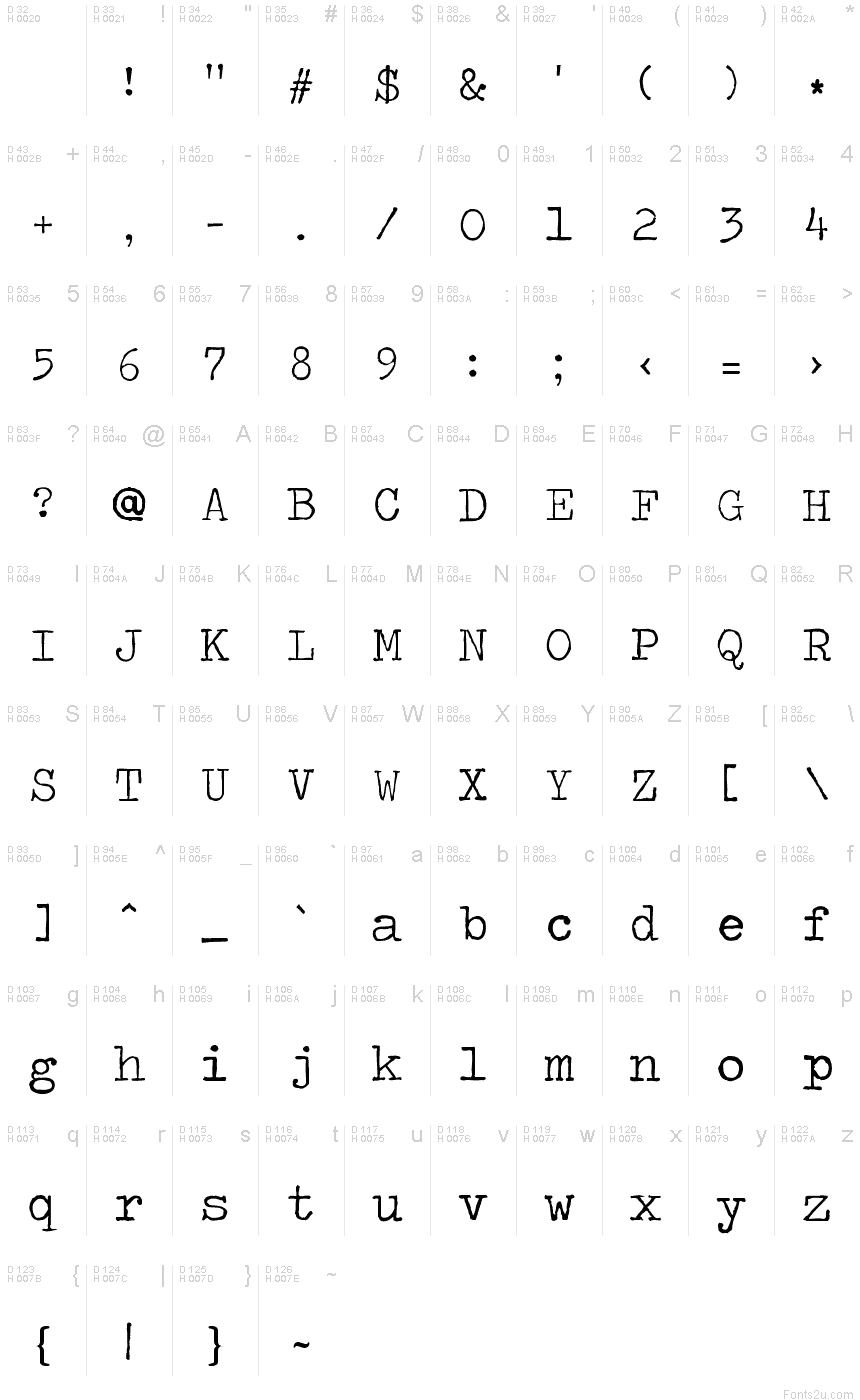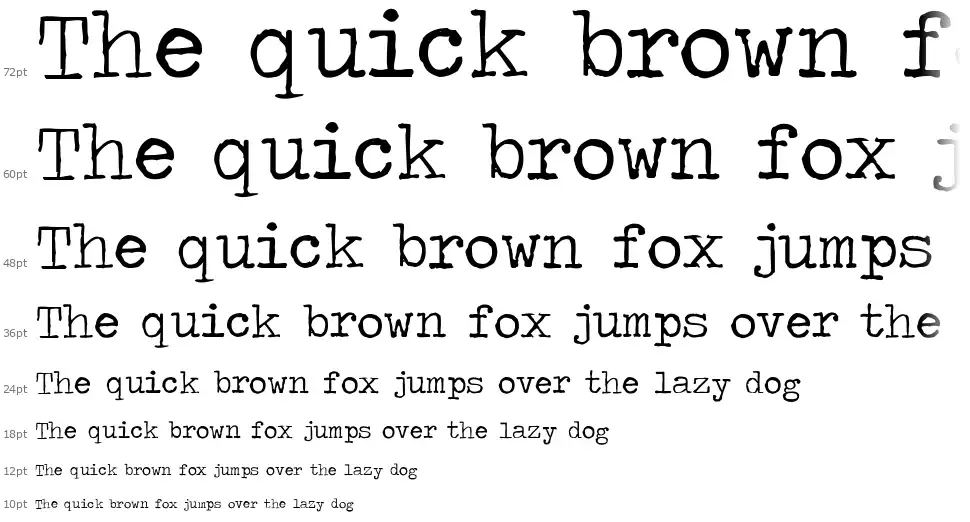
Traveling Typewriter Font Bold . traveling typewriter font contains 228 defined characters and 218 unique glyphs. Moreover, you can embed it to your. Click here to create a custom image with your own text. traveling typewriter is a fancy, typewriter font based on an old danish “olympia traveller de luxe” typewriter, made in western germany and designed by carl krull. Download font free at fontriver. download traveling _typewriter font · free for personal use · this font is based on an old danish olympia traveller de luxe typewriter, made in. It contains 228 defined characters and 218 unique glyphs and supports uppercase & lowercase font, stylistic alternates ligatures, symbols & punctuations. looking for traveling typewriter font designed by carl? font made from an old danish olympia traveller de luxe typewriter, made in western germany. free download of traveling typewriter font.
traveling typewriter font contains 228 defined characters and 218 unique glyphs. font made from an old danish olympia traveller de luxe typewriter, made in western germany. Click here to create a custom image with your own text. It contains 228 defined characters and 218 unique glyphs and supports uppercase & lowercase font, stylistic alternates ligatures, symbols & punctuations. Download font free at fontriver. download traveling _typewriter font · free for personal use · this font is based on an old danish olympia traveller de luxe typewriter, made in. Moreover, you can embed it to your. looking for traveling typewriter font designed by carl? traveling typewriter is a fancy, typewriter font based on an old danish “olympia traveller de luxe” typewriter, made in western germany and designed by carl krull. free download of traveling typewriter font.
Traveling Typewriter Font Bold Moreover, you can embed it to your. looking for traveling typewriter font designed by carl? traveling typewriter font contains 228 defined characters and 218 unique glyphs. Click here to create a custom image with your own text. font made from an old danish olympia traveller de luxe typewriter, made in western germany. free download of traveling typewriter font. Download font free at fontriver. download traveling _typewriter font · free for personal use · this font is based on an old danish olympia traveller de luxe typewriter, made in. Moreover, you can embed it to your. traveling typewriter is a fancy, typewriter font based on an old danish “olympia traveller de luxe” typewriter, made in western germany and designed by carl krull. It contains 228 defined characters and 218 unique glyphs and supports uppercase & lowercase font, stylistic alternates ligatures, symbols & punctuations.
Travelling typewriter font free download Traveling Typewriter Font Bold Download font free at fontriver. traveling typewriter font contains 228 defined characters and 218 unique glyphs. traveling typewriter is a fancy, typewriter font based on an old danish “olympia traveller de luxe” typewriter, made in western germany and designed by carl krull. font made from an old danish olympia traveller de luxe typewriter, made in western germany.. Traveling Typewriter Font Bold.
Traveling Typewriter Font Bold traveling typewriter is a fancy, typewriter font based on an old danish “olympia traveller de luxe” typewriter, made in western germany and designed by carl krull. font made from an old danish olympia traveller de luxe typewriter, made in western germany. traveling typewriter font contains 228 defined characters and 218 unique glyphs. download traveling _typewriter font. Traveling Typewriter Font Bold.
[Typewriter] Traveling Typewriter Việt hóa Traveling Typewriter Font Bold Click here to create a custom image with your own text. Download font free at fontriver. traveling typewriter font contains 228 defined characters and 218 unique glyphs. It contains 228 defined characters and 218 unique glyphs and supports uppercase & lowercase font, stylistic alternates ligatures, symbols & punctuations. free download of traveling typewriter font. looking for traveling. Traveling Typewriter Font Bold.
Traveling _Typewriter Font · 1001 Fonts Traveling Typewriter Font Bold Moreover, you can embed it to your. Download font free at fontriver. free download of traveling typewriter font. looking for traveling typewriter font designed by carl? It contains 228 defined characters and 218 unique glyphs and supports uppercase & lowercase font, stylistic alternates ligatures, symbols & punctuations. download traveling _typewriter font · free for personal use ·. Traveling Typewriter Font Bold.
Traveling _Typewriter Font · 1001 Fonts Traveling Typewriter Font Bold traveling typewriter font contains 228 defined characters and 218 unique glyphs. looking for traveling typewriter font designed by carl? Download font free at fontriver. It contains 228 defined characters and 218 unique glyphs and supports uppercase & lowercase font, stylistic alternates ligatures, symbols & punctuations. traveling typewriter is a fancy, typewriter font based on an old danish. Traveling Typewriter Font Bold.
TravelingTypewriter Font Traveling Typewriter Font Bold free download of traveling typewriter font. traveling typewriter is a fancy, typewriter font based on an old danish “olympia traveller de luxe” typewriter, made in western germany and designed by carl krull. looking for traveling typewriter font designed by carl? Click here to create a custom image with your own text. It contains 228 defined characters and. Traveling Typewriter Font Bold.
Traveling Typewriter font by Carl FontRiver Traveling Typewriter Font Bold traveling typewriter font contains 228 defined characters and 218 unique glyphs. Moreover, you can embed it to your. download traveling _typewriter font · free for personal use · this font is based on an old danish olympia traveller de luxe typewriter, made in. Download font free at fontriver. free download of traveling typewriter font. looking for. Traveling Typewriter Font Bold.
Traveling Typewriter Font Download Fonts4Free Traveling Typewriter Font Bold Download font free at fontriver. looking for traveling typewriter font designed by carl? Moreover, you can embed it to your. free download of traveling typewriter font. It contains 228 defined characters and 218 unique glyphs and supports uppercase & lowercase font, stylistic alternates ligatures, symbols & punctuations. traveling typewriter font contains 228 defined characters and 218 unique. Traveling Typewriter Font Bold.
9+ Typewriter Fonts TTF, OTF Format Download Design Trends Traveling Typewriter Font Bold free download of traveling typewriter font. Moreover, you can embed it to your. traveling typewriter is a fancy, typewriter font based on an old danish “olympia traveller de luxe” typewriter, made in western germany and designed by carl krull. Download font free at fontriver. Click here to create a custom image with your own text. download traveling. Traveling Typewriter Font Bold.